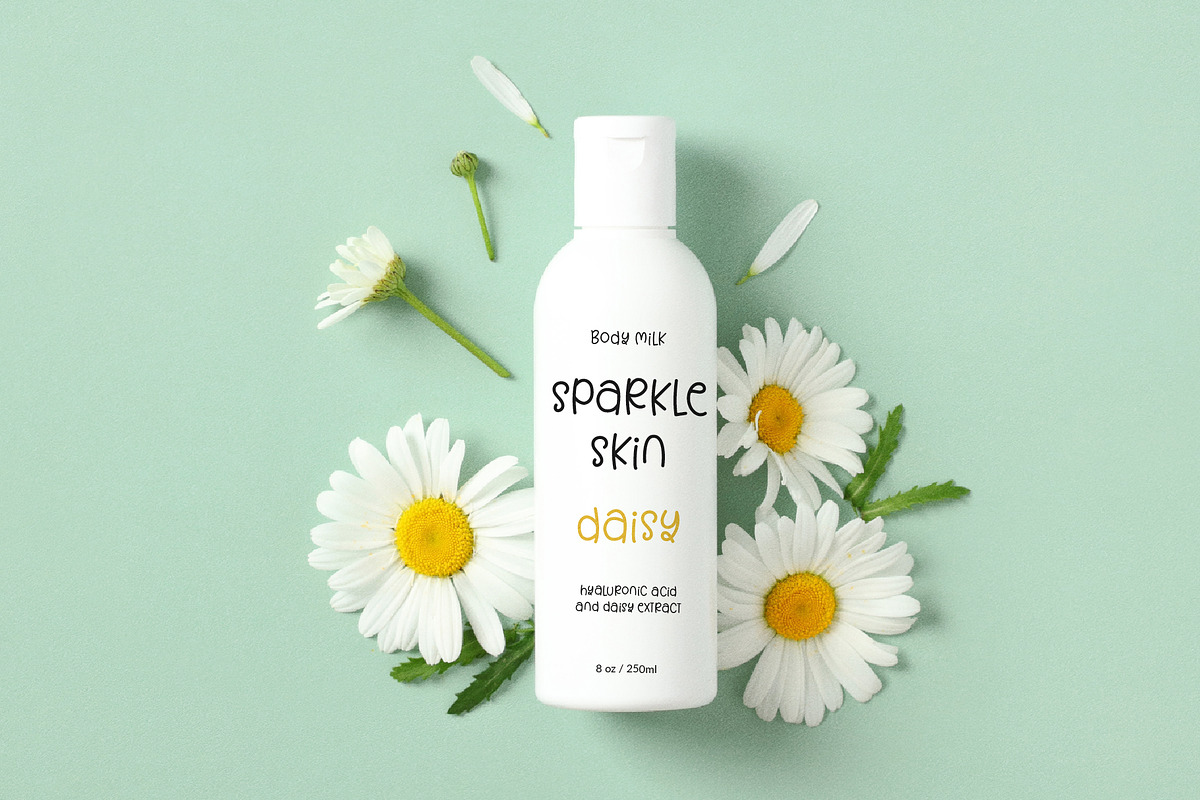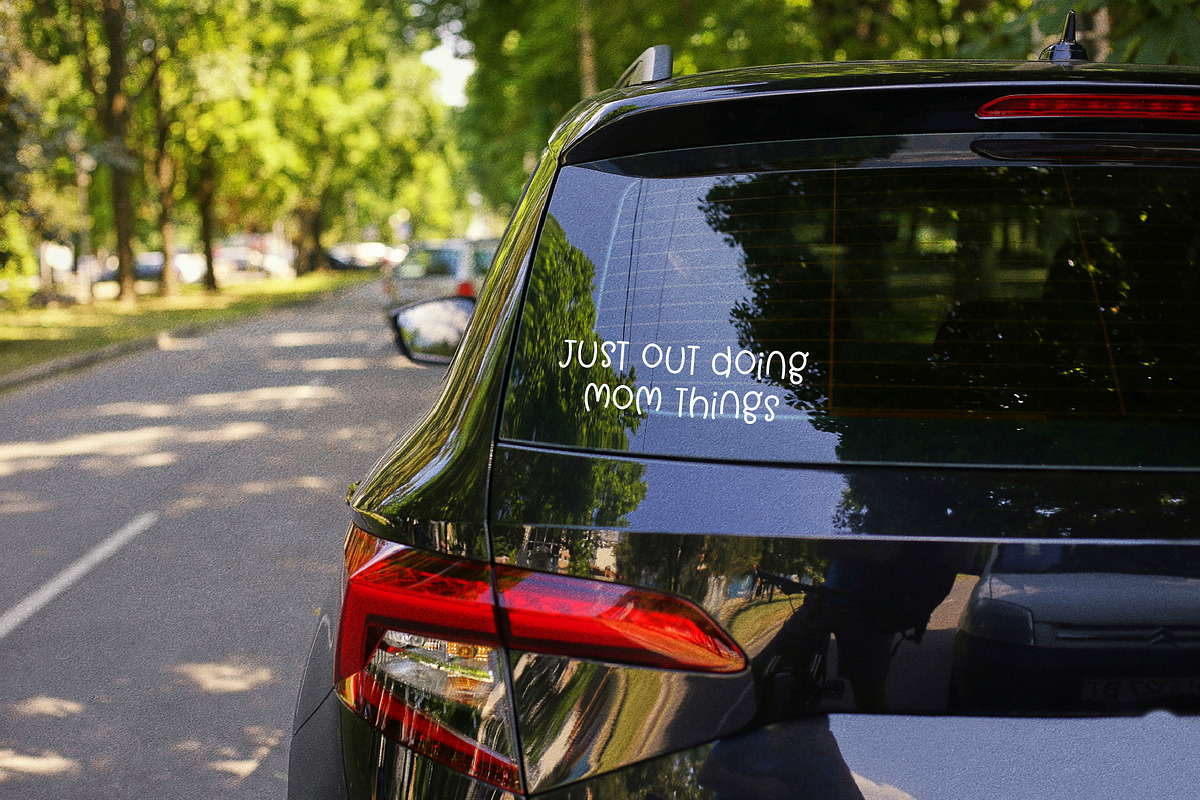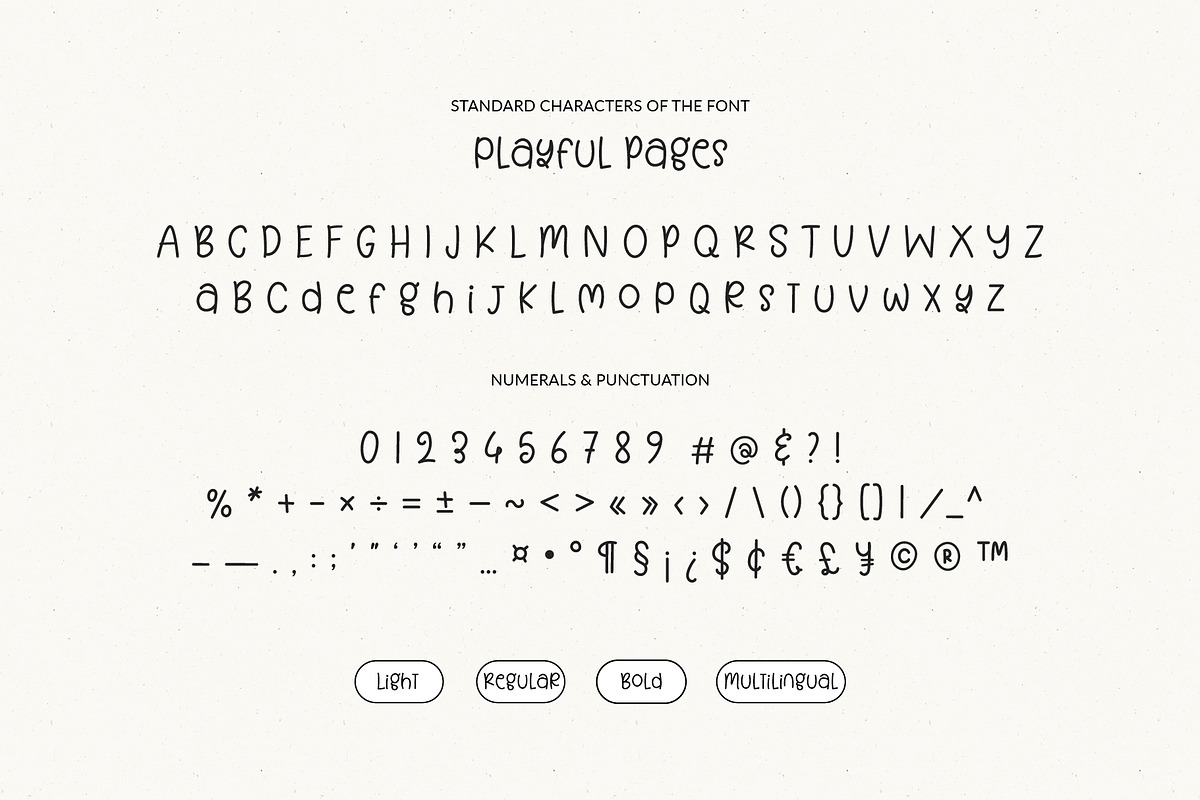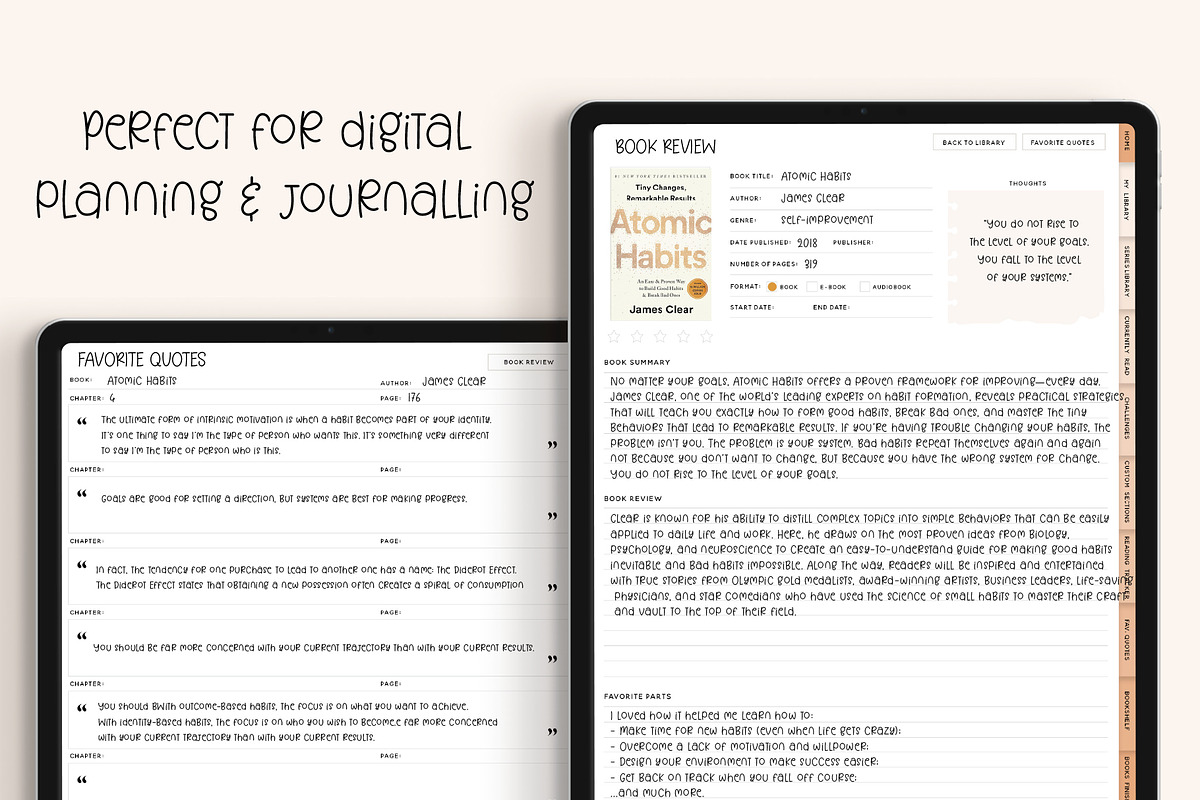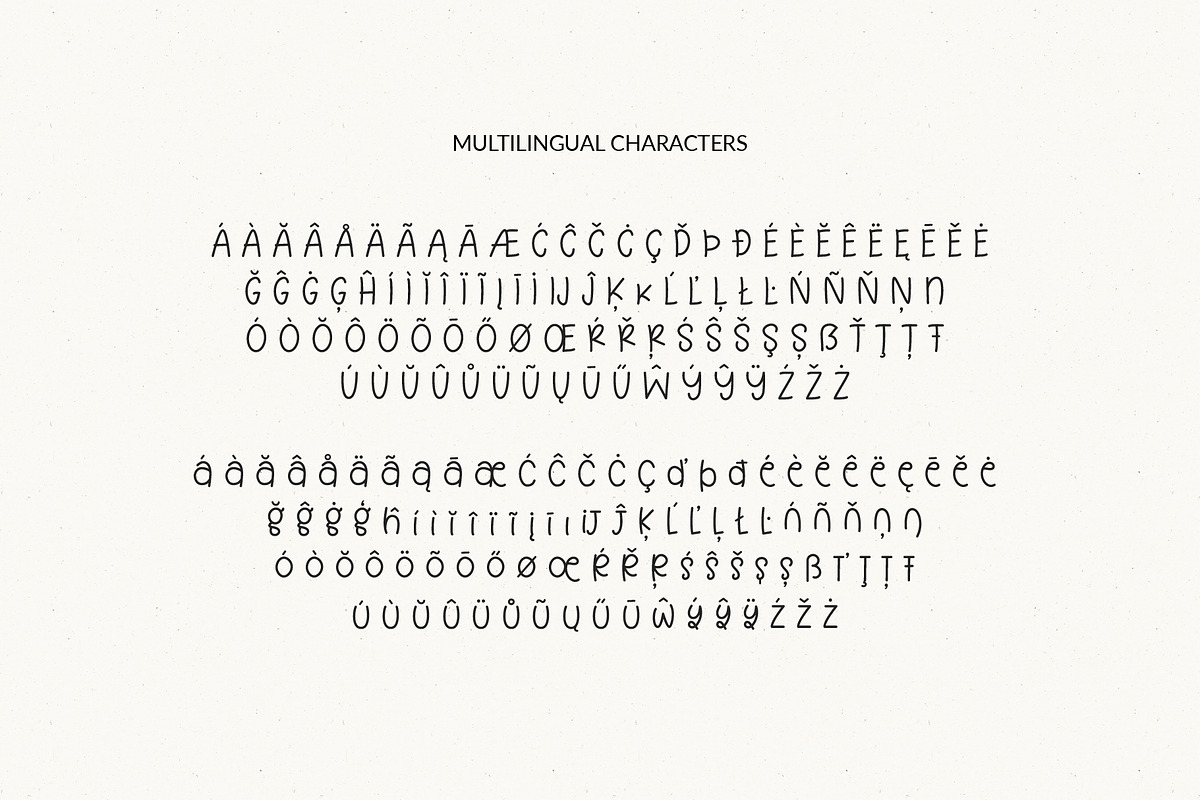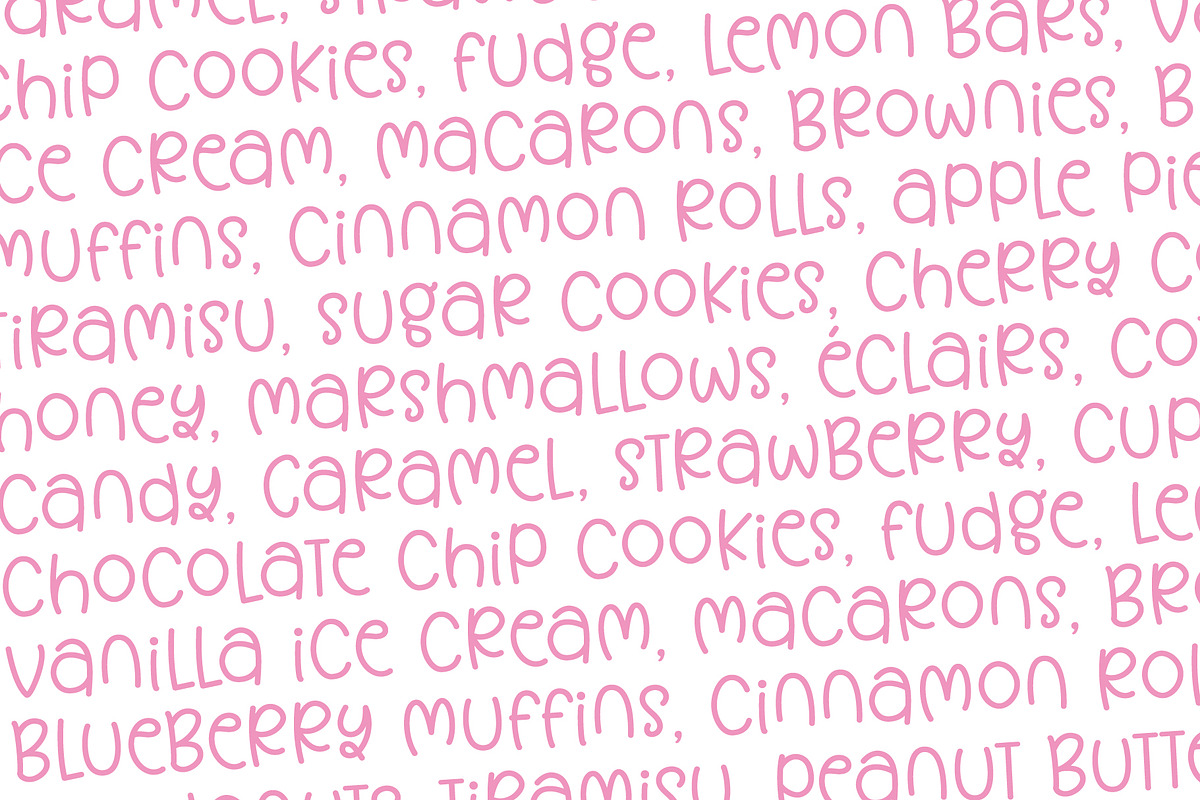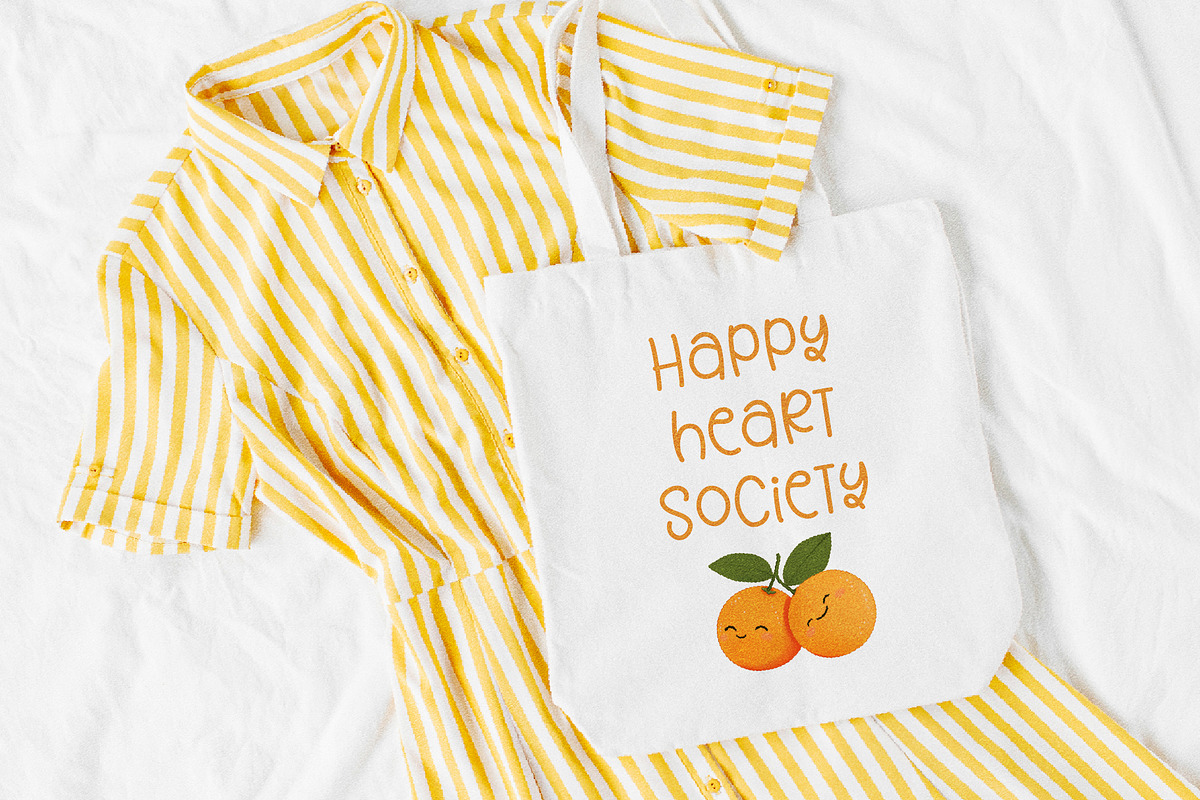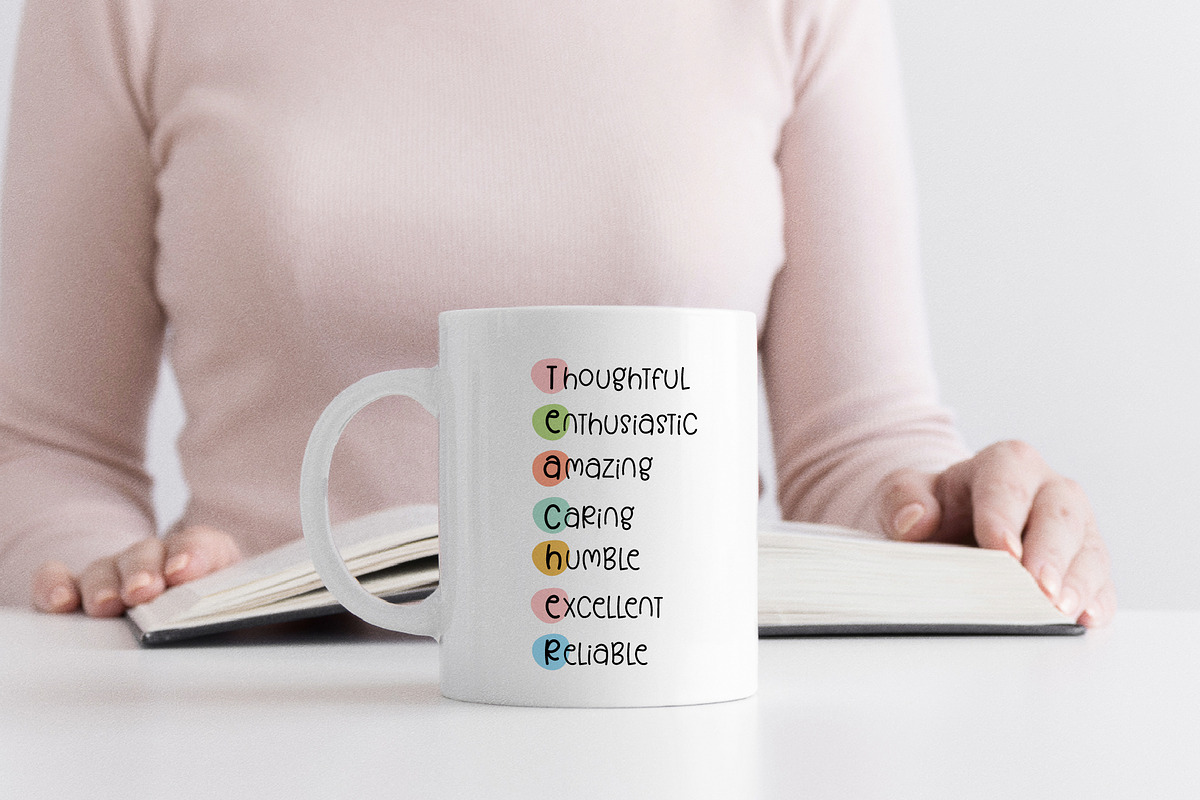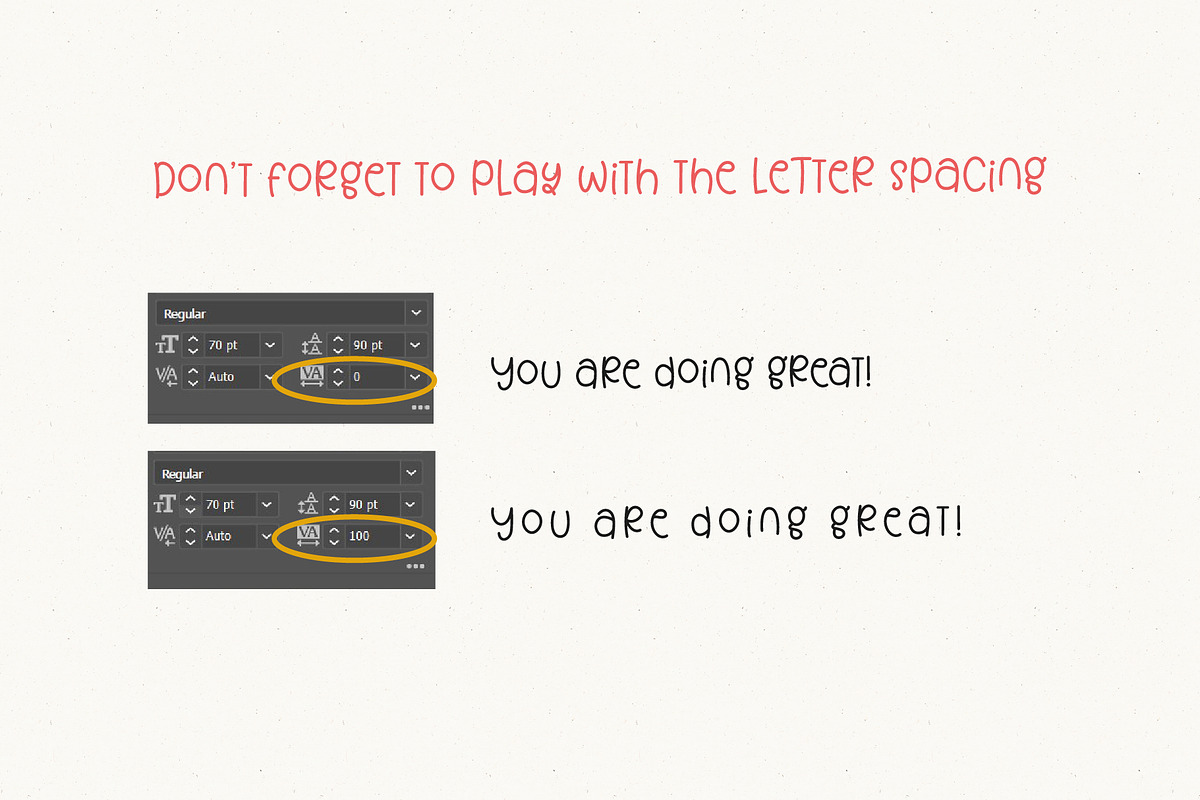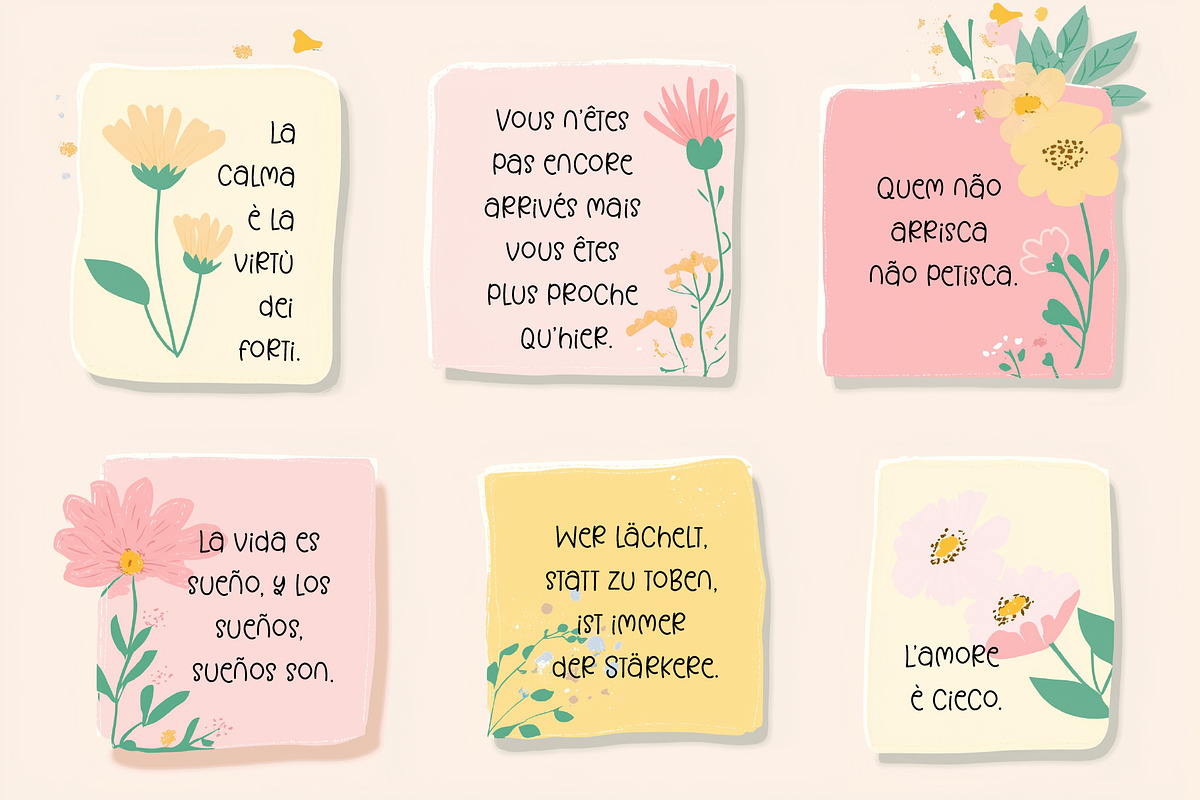
Playful Pages - A Quirky Font
Say hello to Playful Pages, a cute & quirky handwriting font that brings warmth and personality to your designs. It is great for craft projects, invitations, greeting cards, logos, branding, social media, printed goods or anything that requires cute handwritten lettering.
This versatile font comes in three weights—light, regular, and bold— and it has international characters.
FONT FEATURES
• Cute handwriting style
• Standart characters (lowercase, uppercase, numbers, punctuation)
• Multilingual characters:
Á À Ă Â Å Ä Ã Ą Ā Æ Ć Ĉ Č Ċ Ç Ď Þ Đ É È Ĕ Ê Ë Ę Ē Ě Ė Ğ Ĝ Ġ Ģ Ĥ Í Ì Ĭ Î Ï Ĩ Į Ī İ IJ Ĵ Ķ ĸ Ĺ Ľ Ļ Ł Ŀ Ń Ñ Ň Ņ Ŋ Ó Ò Ŏ Ô Ö Õ Ō Ő Ø Œ Ŕ Ř Ŗ Ś Ŝ Š Ş Ș ẞ Ť Ţ Ț Ŧ Ú Ù Ŭ Û Ů Ü Ũ Ų Ū Ű Ŵ Ý Ŷ Ÿ Ź Ž Ż
á à ă â å ä ã ą ā æ ć ĉ č ċ ç ď þ đ é è ĕ ê ë ę ē ě ė ğ ĝ ġ ģ ĥ í ì ĭ î ï ĩ į ī ı ij ĵ ķ ĺ ľ ļ ł ŀ ń ñ ň ņ ŋ ó ò ŏ ô ö õ ō ő ø œ ŕ ř ŗ ś ŝ š ş ș ß ť ţ ț ŧ ú ù ŭ û ü ů ũ ų ű ū ŵ ý ŷ ÿ ź ž ż
• Supported Languages:
Afrikaans, Albanian, Asu, Basque, Bemba, Bena, Breton, Chiga, Colognian, Cornish, Croatian, Czech, Danish, Dutch, Embu, English, Esperanto, Estonian, Filipino, Finnish, French, Friulian, Galician, Ganda, German, Gusii, Hungarian, Inari, Sami, Indonesian, Irish, Italian, Jola-Fonyi, Kabuverdianu, Kalaallisut, Kalenjin, Kamba, Kikuyu, Kinyarwanda, Latvian, Lithuanian, Lower Sorbian, Luo, Luxembourgish, Luyia, Machame, Makhuwa-Meetto, Makonde, Malagasy, Manx, Meru, Morisyen, Northern Sami, North Ndebele, Norwegian Bokmål, Norwegian Nynorsk, Nyankole, Oromo, Polish, Portuguese, Quechua, Romanian, Romansh, Rombo, Rundi, Rwa, Samburu, Sango, Sangu, Scottish Gaelic, Sena, Serbian, Shambala, Shona, Slovak, Slovenian, Soga, Somali, Spanish, Swahili, Swedish, Swiss German, Taita, Teso, Turkish, Upper Sorbian, Uzbek (Latin), Volapük, Vunjo, Walser, Zulu.